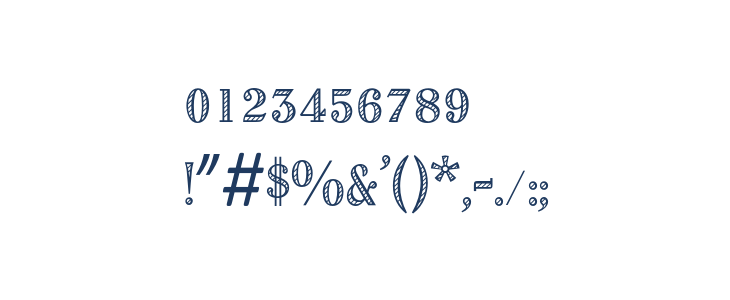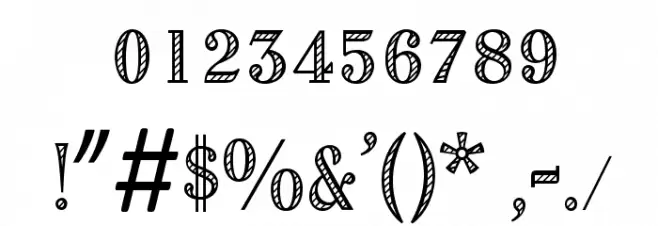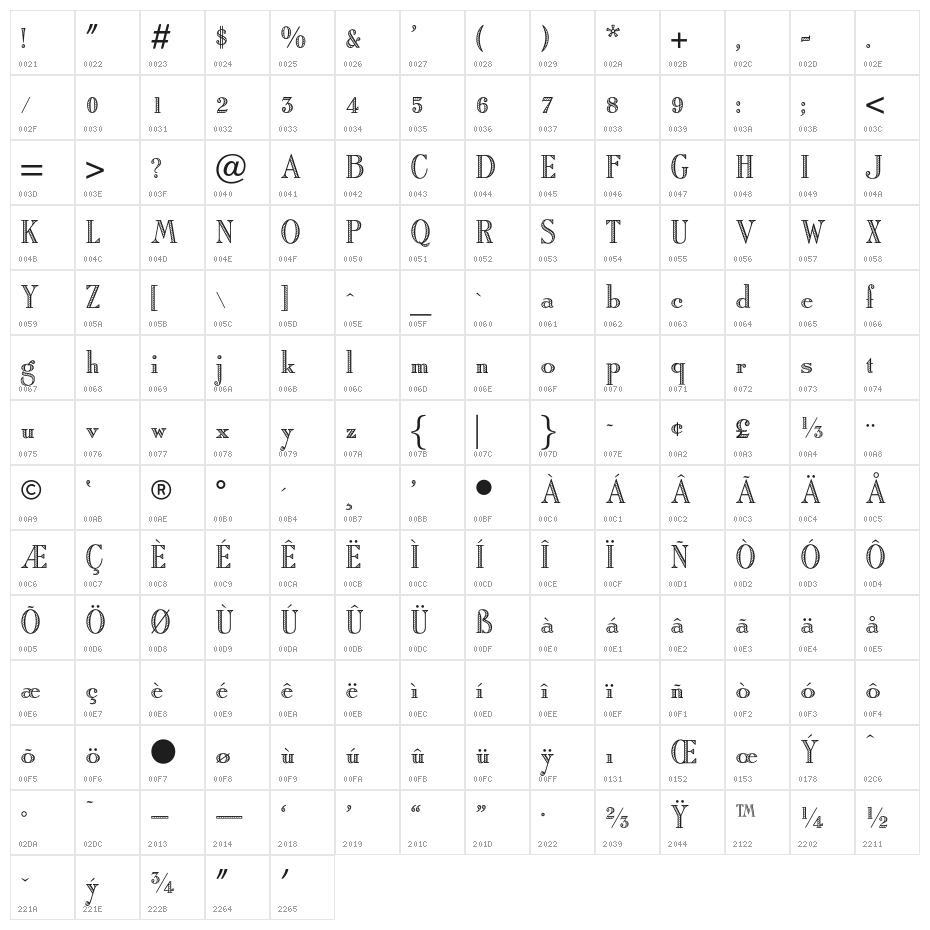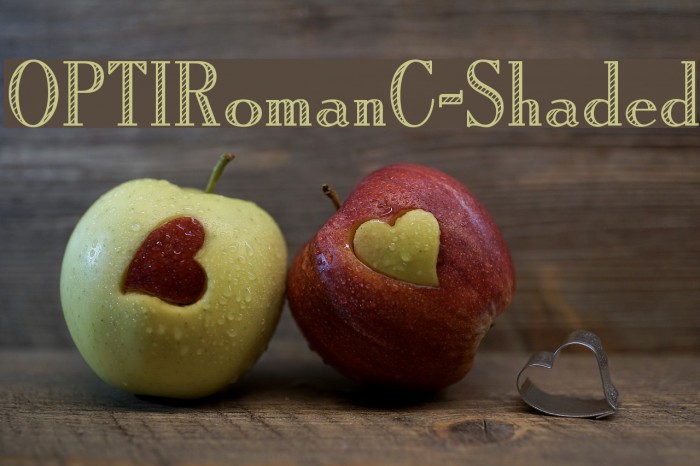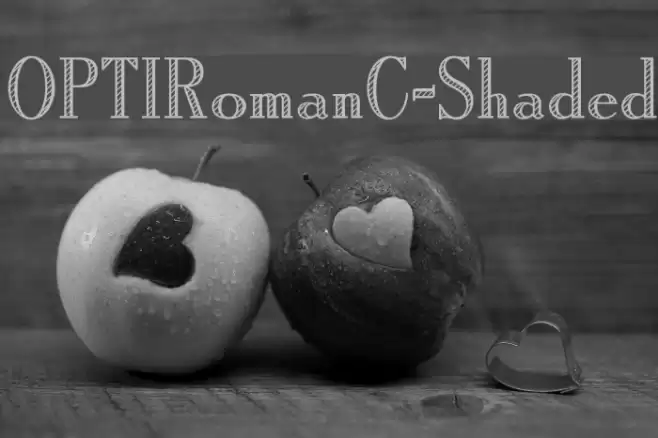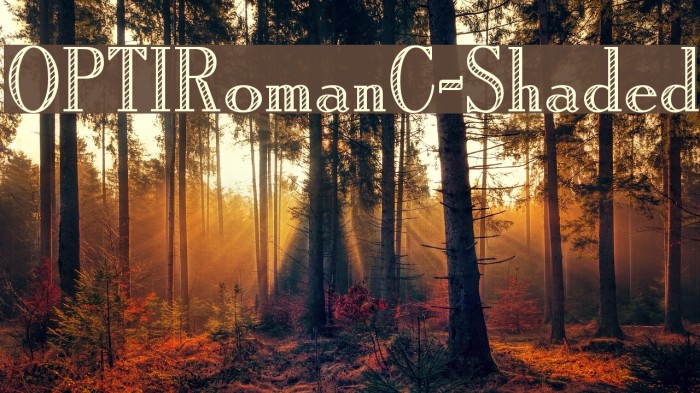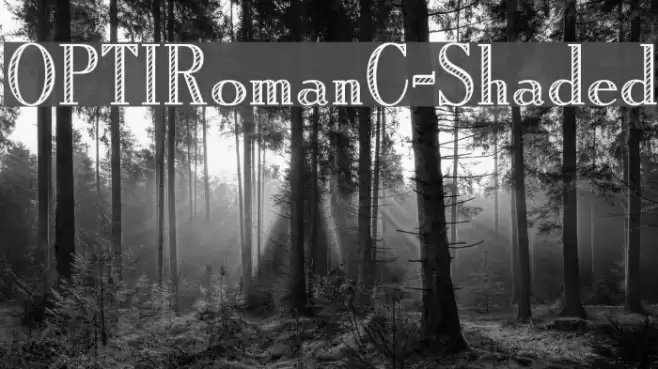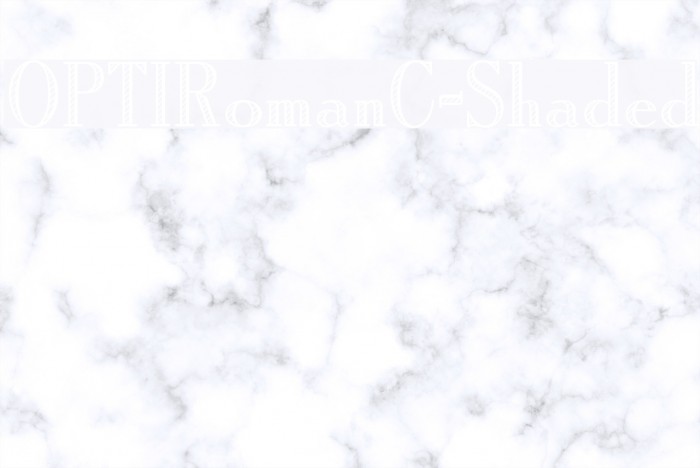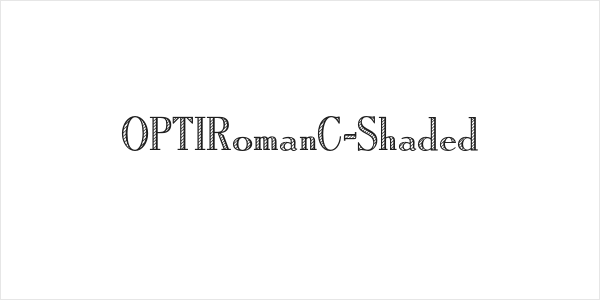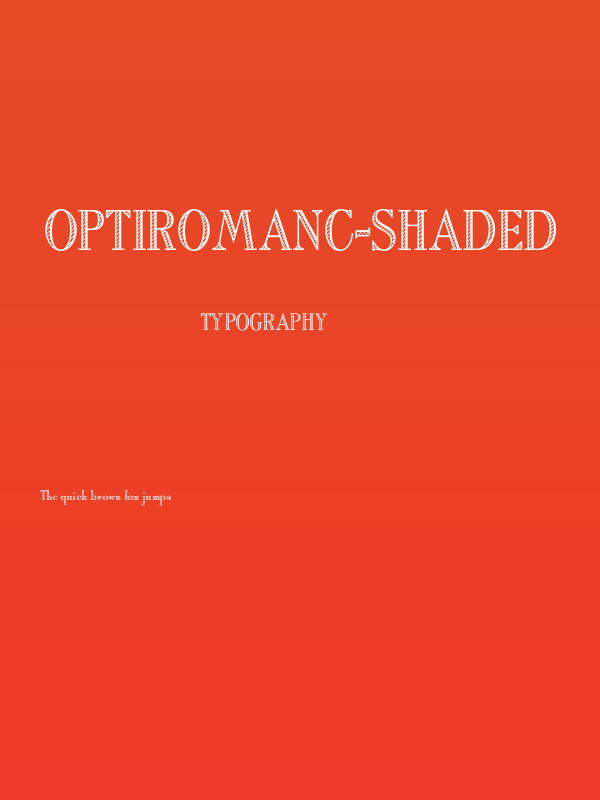
OPTIRomanC-Shaded Font
OPTIRomanC-Shaded Description
This font features a distinctive shaded design, with each character exhibiting a bold, striped pattern that adds depth and texture. The uppercase letters are strong and prominent, while the lowercase letters maintain a consistent style with slightly more delicate curves. Numbers are equally bold, ensuring readability and visual impact. The special characters are crafted with the same attention to detail, making them suitable for various design contexts. The overall appearance is both classic and decorative, making it ideal for projects that require a touch of elegance and sophistication.
| Overall Style | Vintage, Decorative |
| Proposed Projects | Ideal for vintage-themed posters, book covers, branding materials, and decorative signage. |